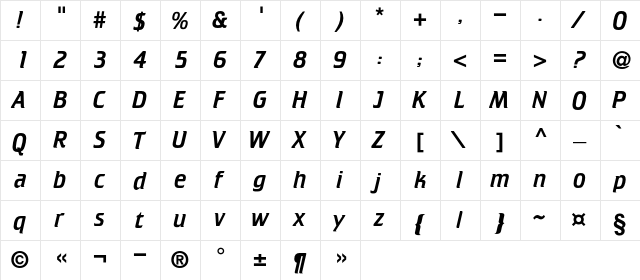
CricketC Regular
Design Context for CricketC Typeface
CricketC takes a measured approach to typography — its balanced proportions and neutral character make it a reliable workhorse for both digital and print work.